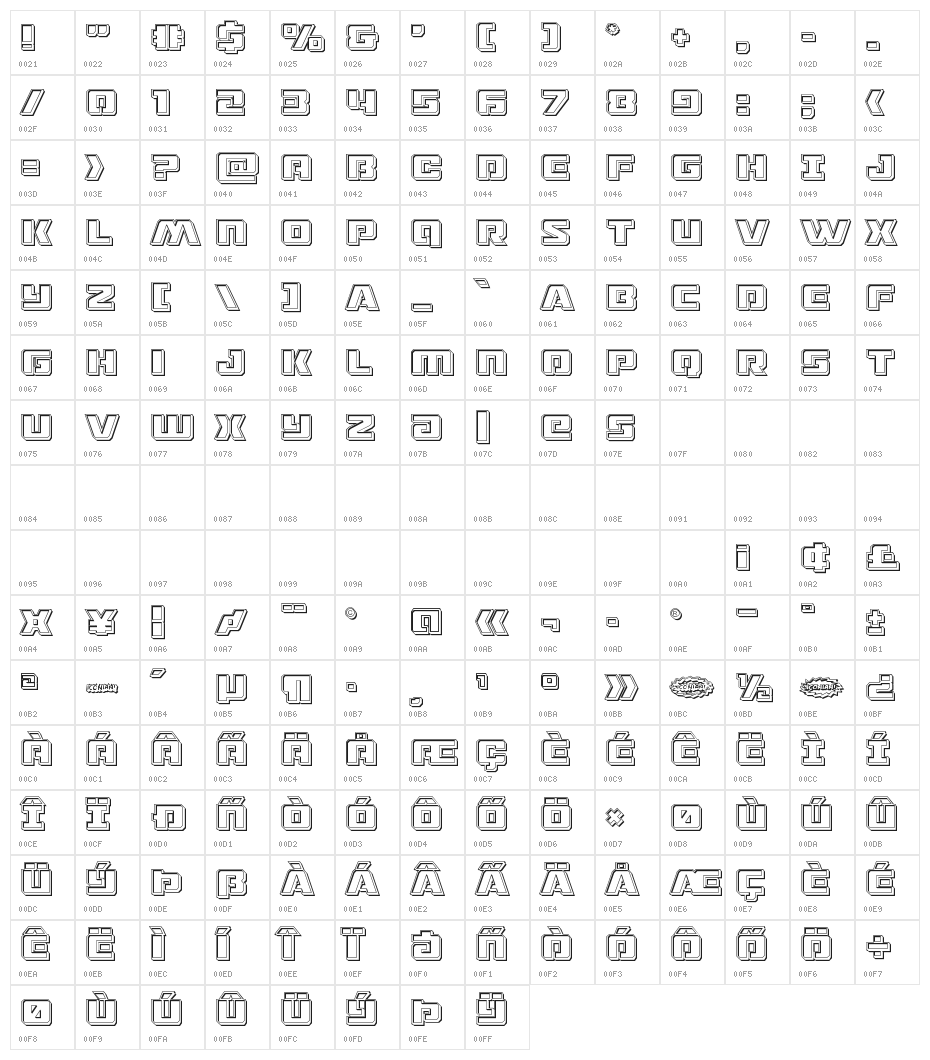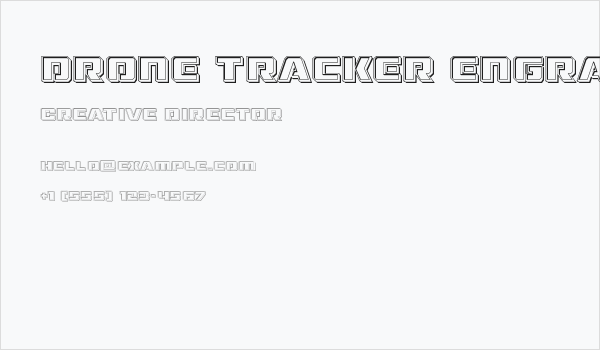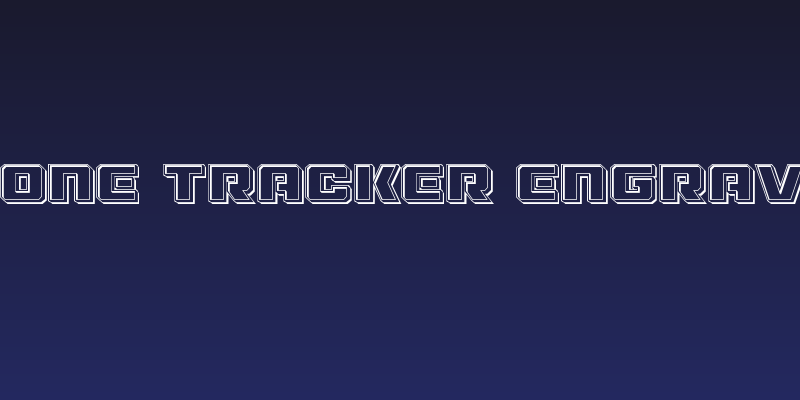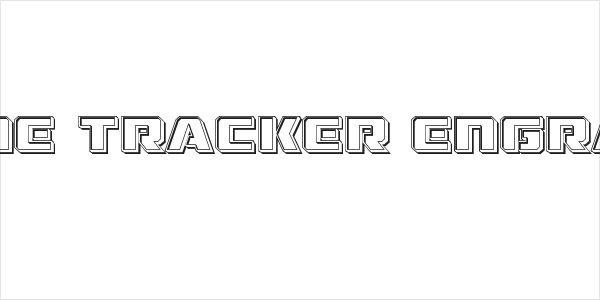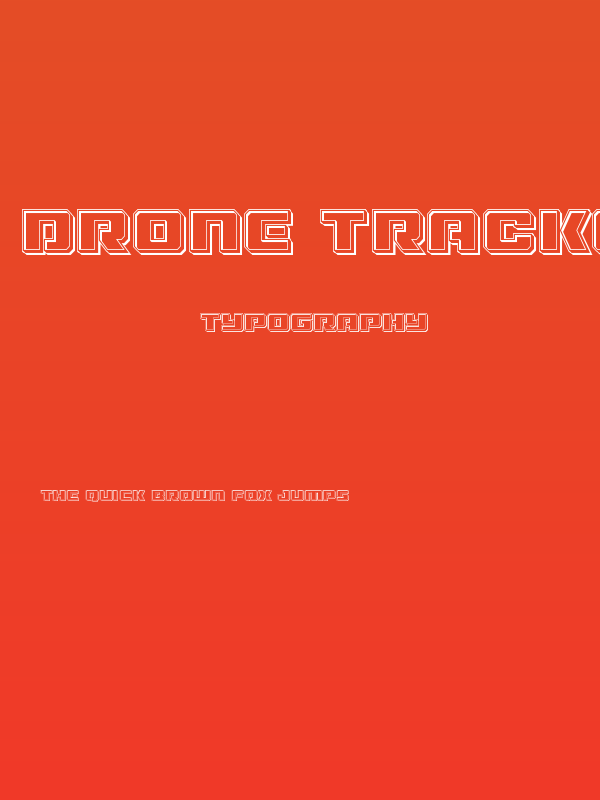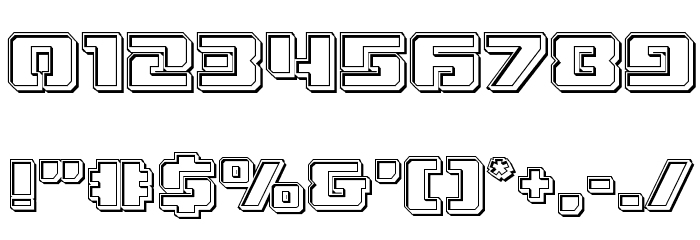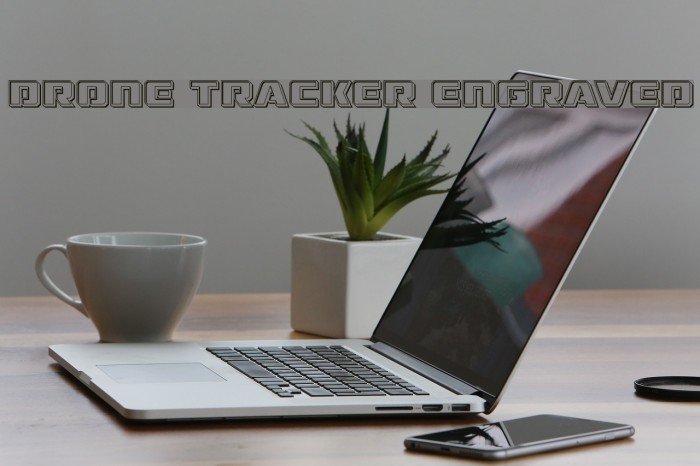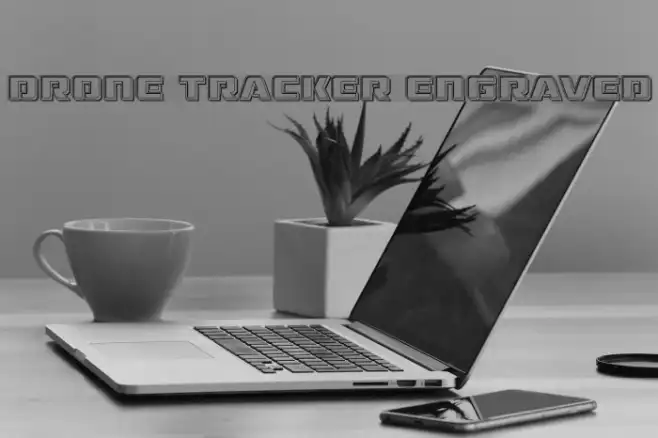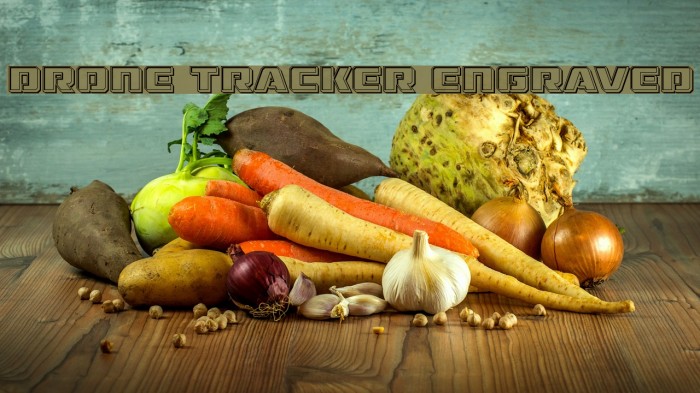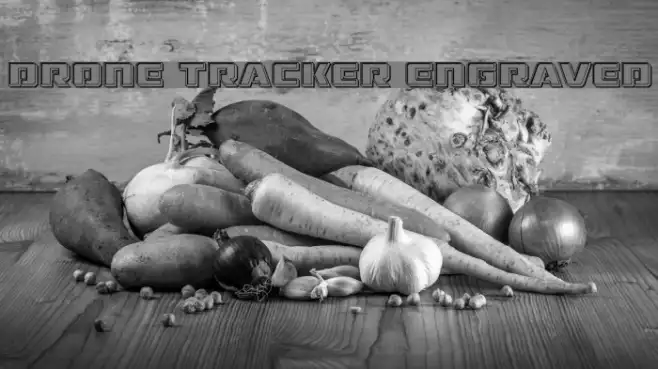
Drone Tracker Engraved Font
Drone Tracker Engraved Description
This font features a bold, geometric design with a distinct engraved effect, giving it a three-dimensional appearance. The characters are outlined with a double line, creating a sense of depth and structure. The angular and blocky style is reminiscent of industrial or futuristic themes, making it stand out with its unique aesthetic. The uppercase and lowercase letters maintain a consistent style, while the numbers and special characters complement the overall design. This font is ideal for projects that require a strong, impactful visual presence.
| Proposed Projects | Ideal for futuristic designs, technology branding, video game titles, and industrial-themed posters. |